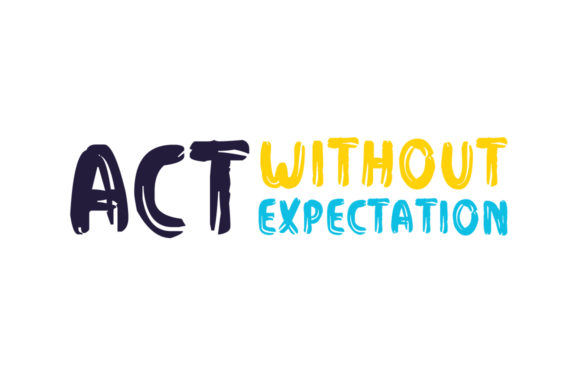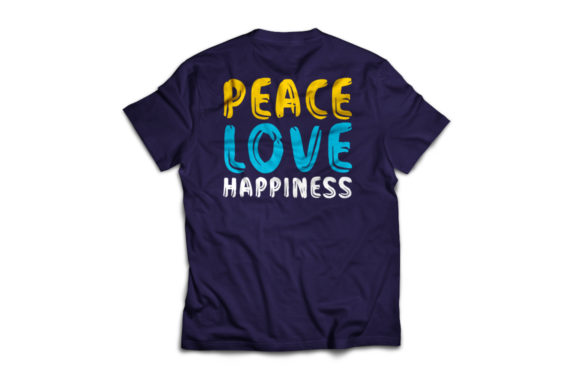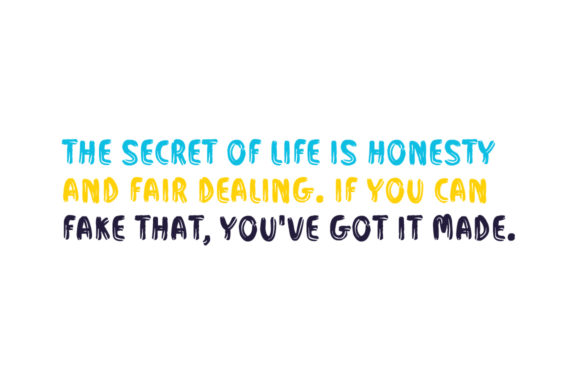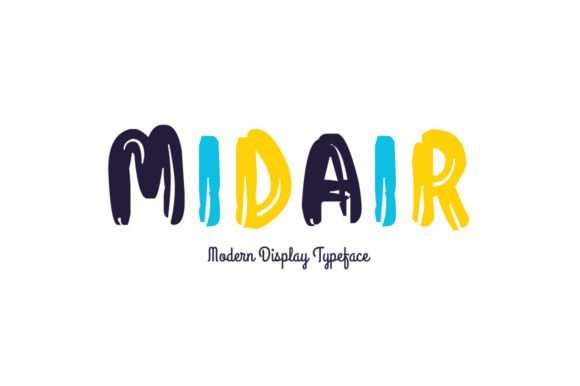
Introduction to Midair Font
The Midair is a brand new display font.
It’s perfectly suited for stationery, logos, t-shirts, papers, print designs, website headers, photo frames, flyers, music covers, posters, image sliders, and much more .
Midair Font offers exceptional quality and versatility, making it a valuable addition to your design toolkit. Whether you’re creating for personal projects or commercial use, Midair Font delivers professional results.